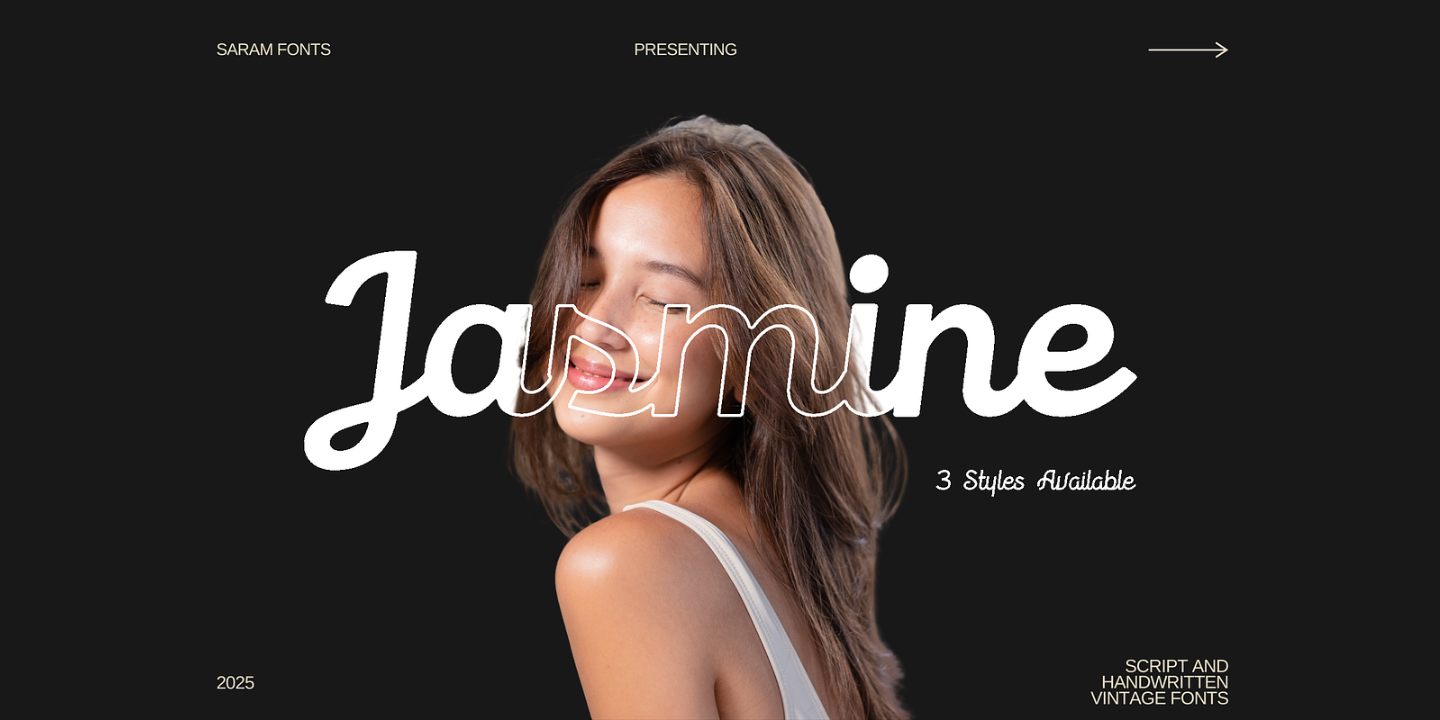
Jasmine
Jasmine is a script font family. This typeface has three styles and was published by Fontistry.
Jasmine is a unique fusion of Script and Slab Serif fonts, inspired by the bold lettering styles of the 1980s. Designed with vintage aesthetics in mind, this font trio is perfect for logos, posters, apparel branding, magazine covers, packaging, stationery, and more.
With three distinct styles—two elegant scripts and one strong slab serif—Jasmine provides a dynamic and versatile approach to typography, making it ideal for both modern and retro-inspired projects.
✔ Jasmine Bold Script – Strong, flowing script with bold strokes.
✔ Jasmine Thin Script – Delicate and refined for a softer touch.
✔ Jasmine Slab Serif Italic – A structured yet stylish serif with a vintage twist.
Each font includes OpenType features like alternate letters and ligatures to help you create custom, unique typography with ease.
Embrace the bold elegance of vintage typography with Jasmine! ????✨